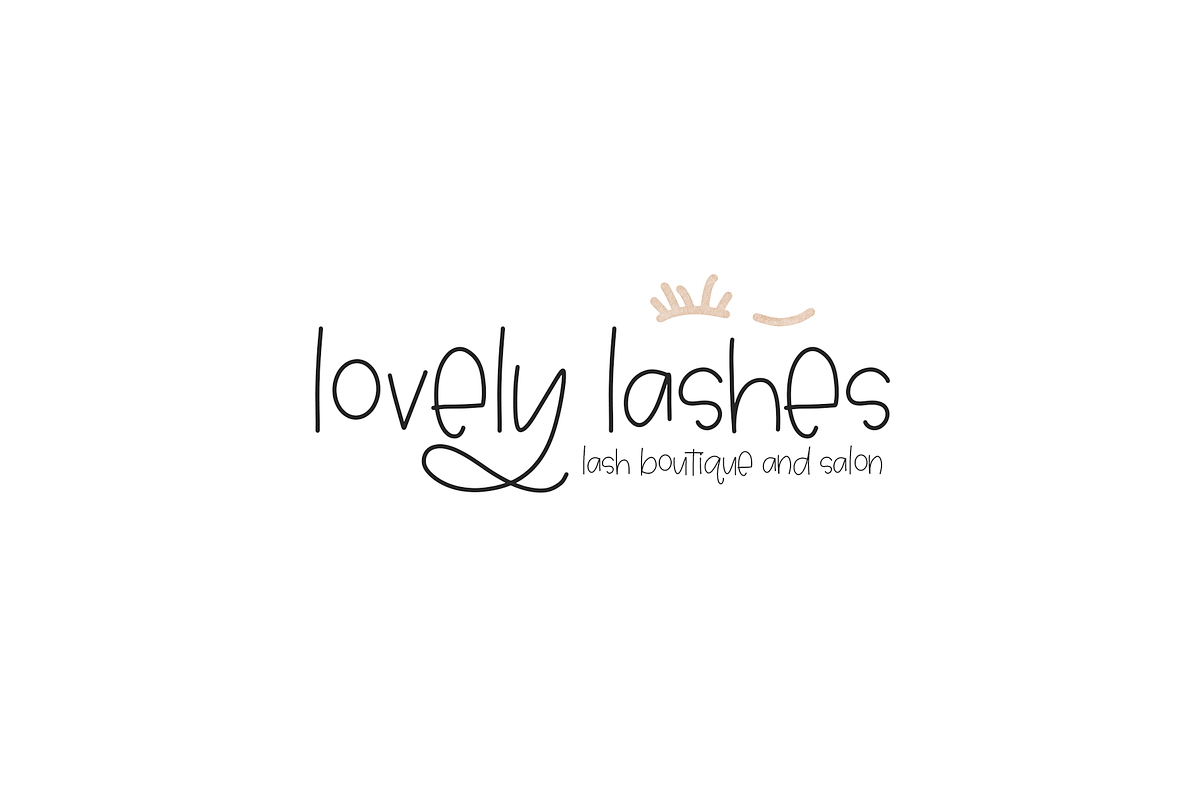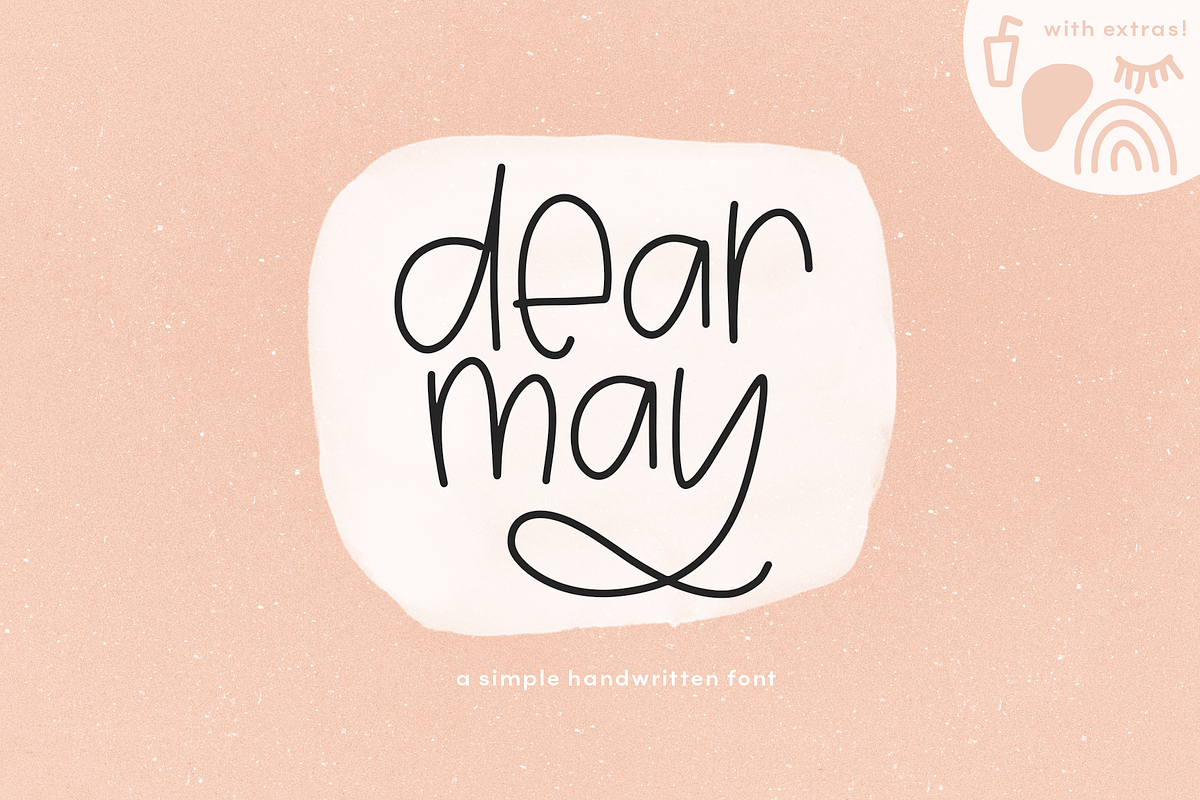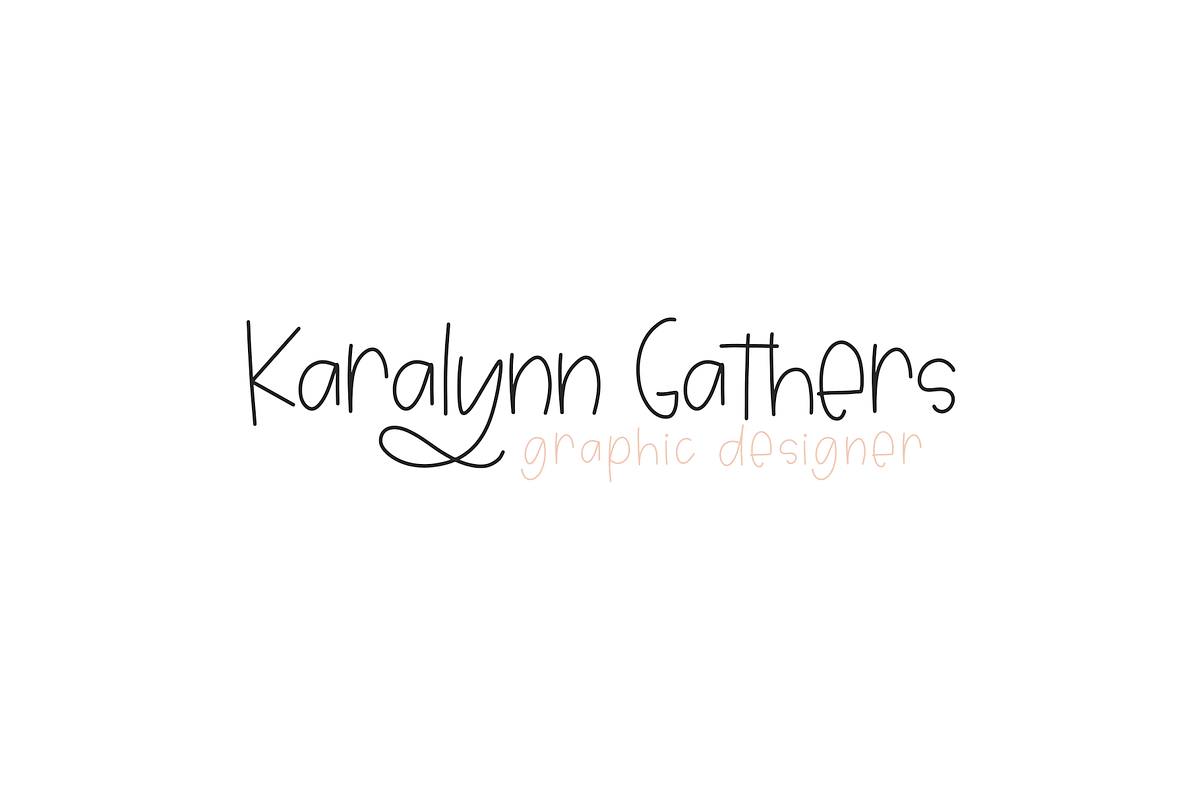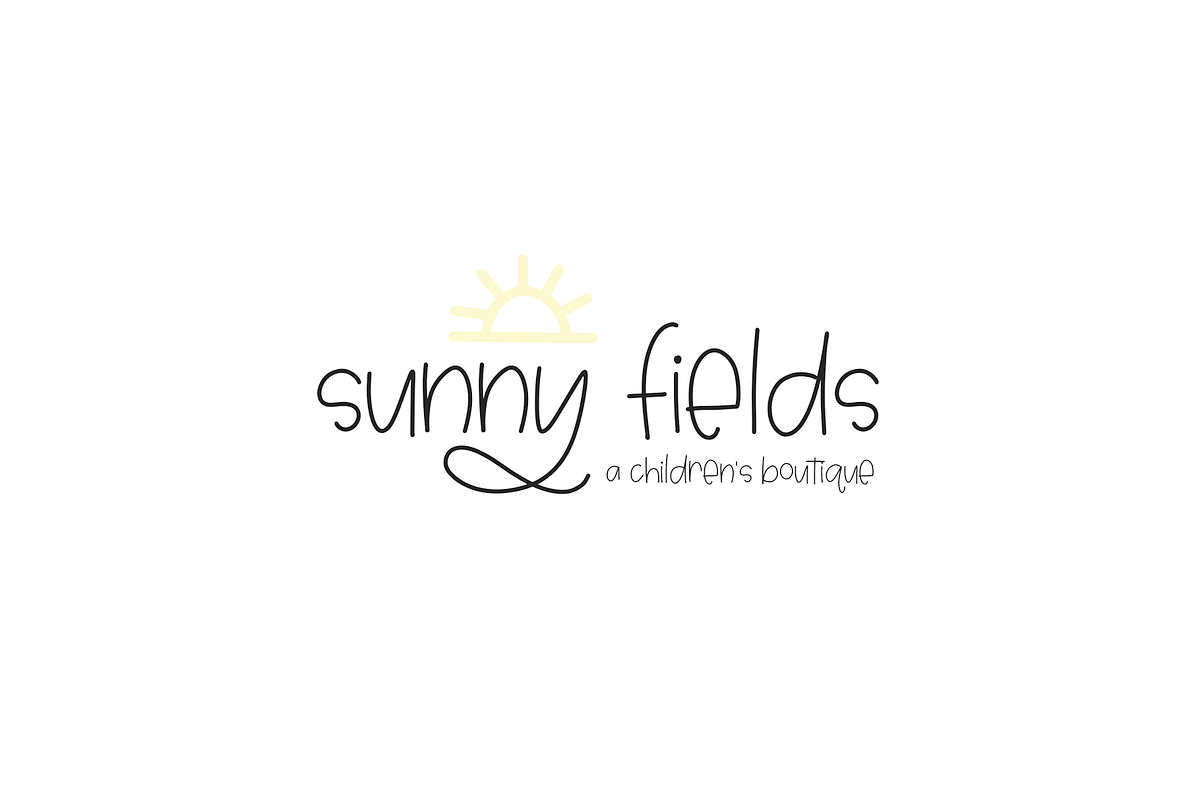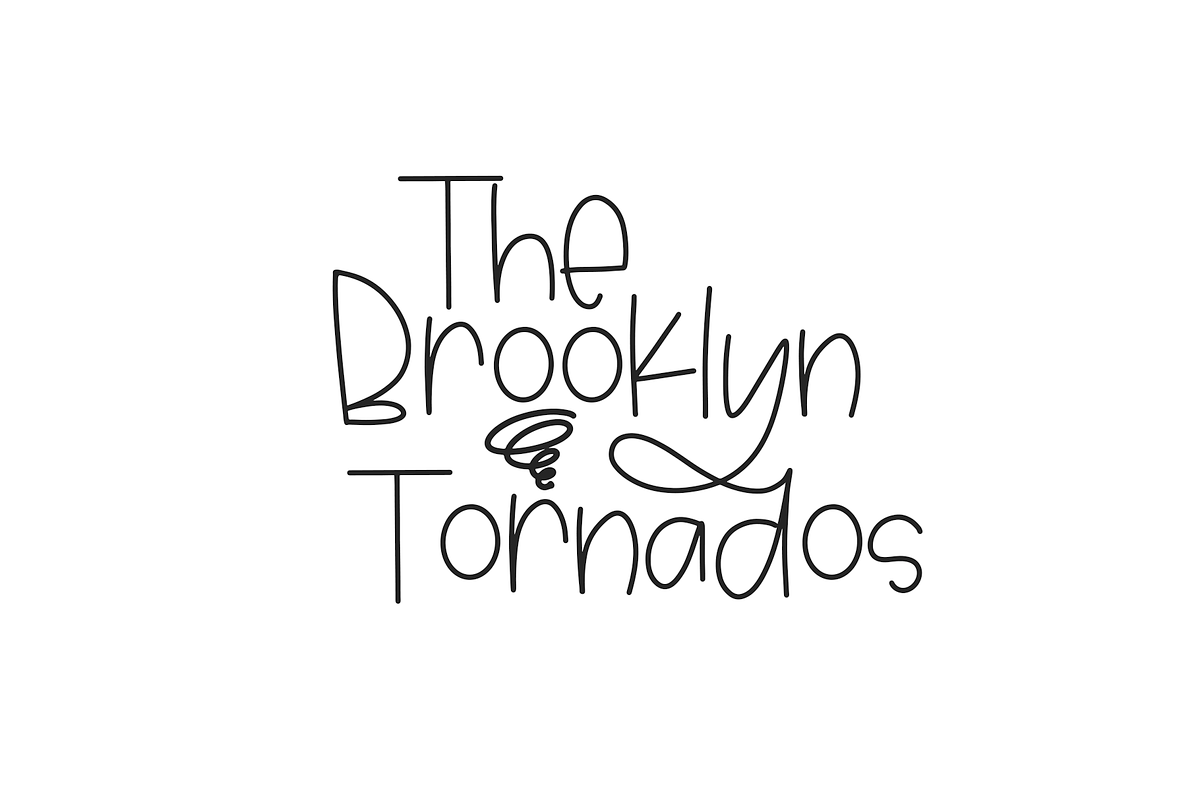
Dear May - A Fun Font with Extras!
Dear May is a fun, handwritten font with a youthful feel. This font is perfect for branding, svg, shirt designs, social media, blogs, logos, signs, and more!